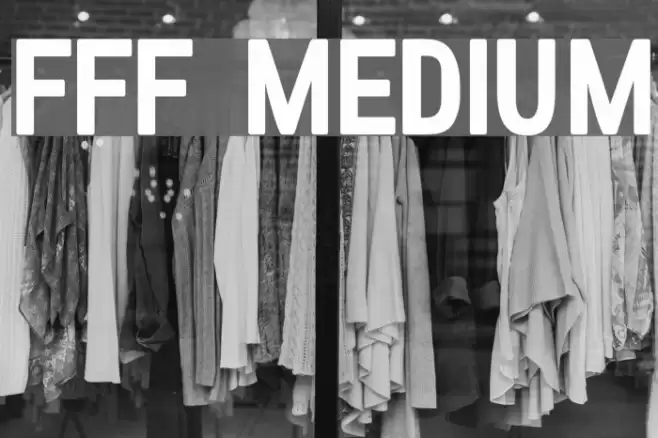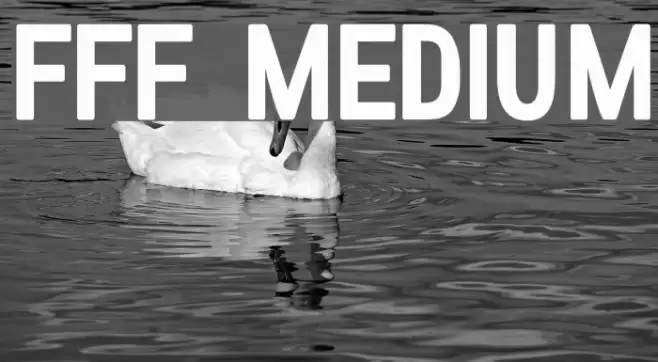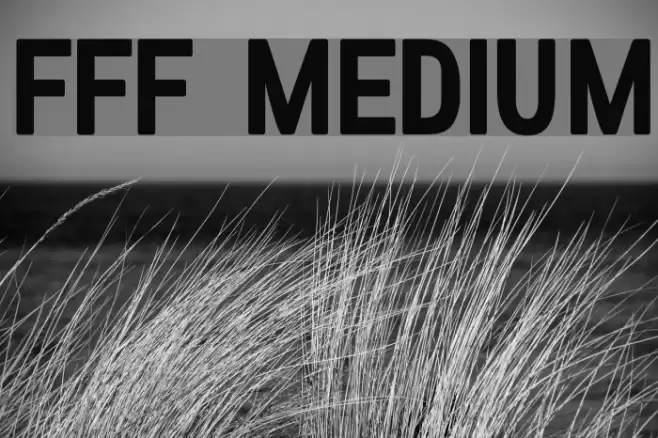
FFF Medium Font
FFF Medium Description
This font is characterized by its bold, strong presence, making it ideal for impactful headlines and attention-grabbing designs. The uppercase letters are uniform in height, with a consistent stroke width that conveys a sense of stability and confidence. The lowercase letters maintain the same boldness, ensuring readability and a cohesive look across different text sizes. The numerals are clear and straightforward, matching the overall robust style of the alphabet. Special characters are designed with the same bold strokes, ensuring they stand out effectively. This font's design is clean and modern, suitable for a variety of applications where a strong visual impact is desired.
A bold, modern font ideal for impactful headlines and designs from Uncategorized fonts.
- Proposed Projects: This font is perfect for branding projects, poster designs, advertising campaigns, and any project requiring a strong, modern typeface.